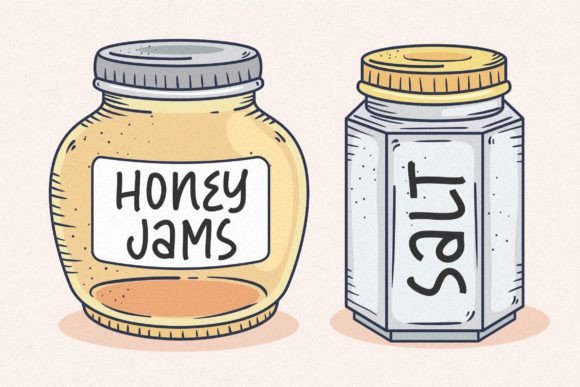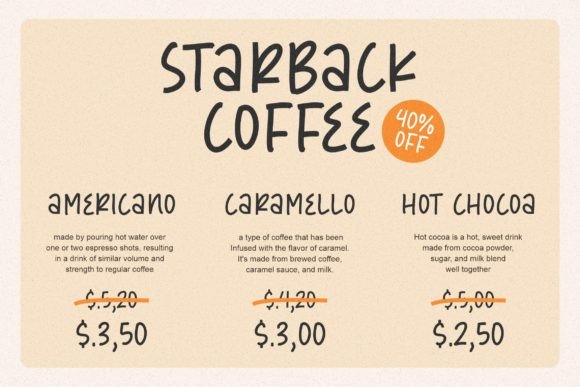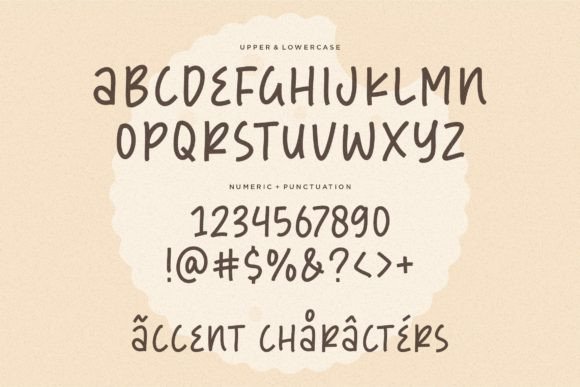
Introduction to Cookie Jars Font
Whether you’re using it for crafts, digital design, presentations, or making greeting cards, this hand drawn font has the potential to become your favorite go-to font, no matter the occasion.
Whether you’re using it for crafts, digital design, presentations, or making greeting cards, this hand drawn font has the potential to become your favorite go-to font, no matter the occasion!
Key Features of Cookie Jars Font